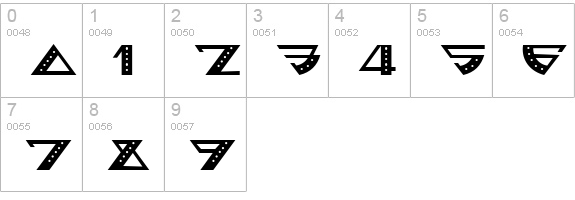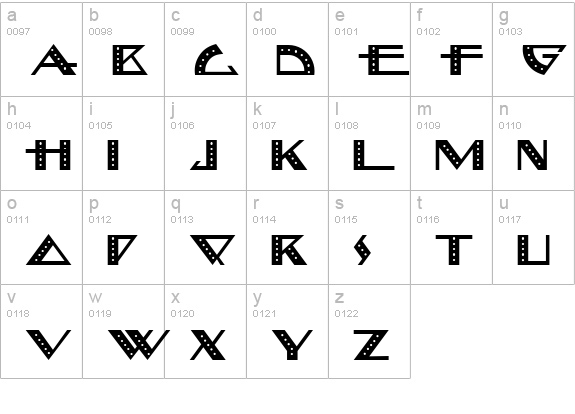
Bellhop NF is a stylish and versatile font that exudes sophistication and elegance. With its clean lines and modern design, this typeface is perfect for a wide range of projects, from branding to editorial design. The sleek curves and sharp edges of Bellhop NF give it a contemporary feel that is sure to make a statement. What sets Bellhop NF apart is that it is not only visually appealing, but also free to use. That's right, this stunning font is freely available to download at FontsMarket.com. Whether you're a designer looking to add a touch of class to your work or a business owner in need of a polished font for your brand, Bellhop NF is the perfect choice. Don't miss out on this fantastic opportunity to elevate your designs with this beautiful and free font.